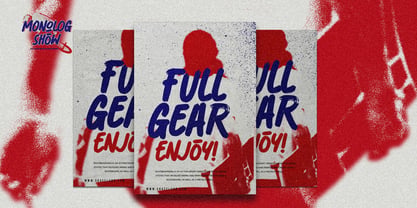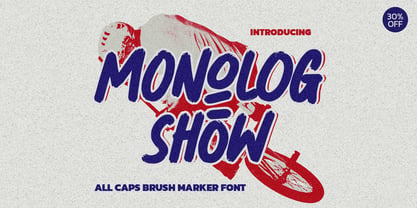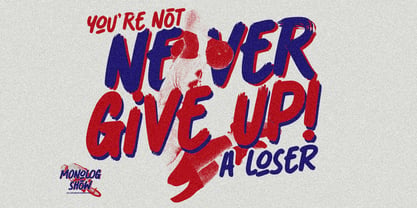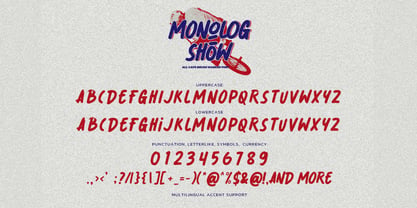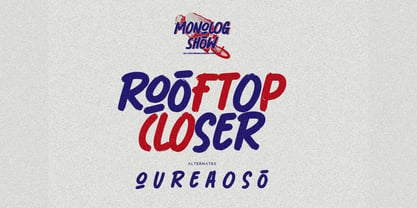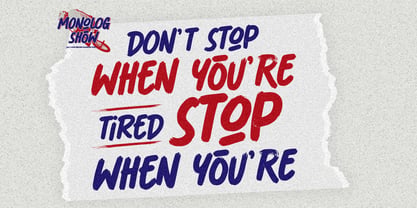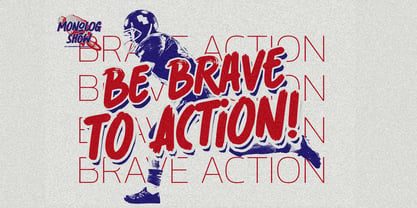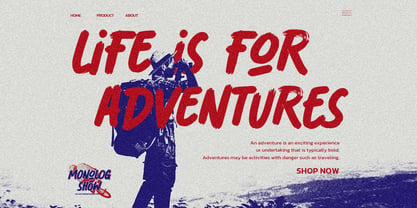
Monolog Show
by Almarkha Type
The Monolog Show Font Family was designed by Abdul Malik Wisnu and published by Almarkha Type. Monolog Show contains 1 styles. More about this family
Introducing Monolog Show, a stunning all-caps display font that embodies a textured, natural style with a touch of class. This versatile font is ideal for a variety of creative projects, including watermarks on photography, logos, branding, invitations, advertisements, product designs, stationery, wedding designs, labels, product packaging, and special events. Monolog Show is a handmade font that adds a beautiful, natural touch to every detail of your design. Perfect for any design project, including invitations, logos, book covers, crafts, photography overlays, signs, window art, scrapbooking, tags, and much more, it features charming, authentic, and relaxed characteristics that enhance the natural look of your text.
Designers: Abdul Malik Wisnu
Foundry: Almarkha Type